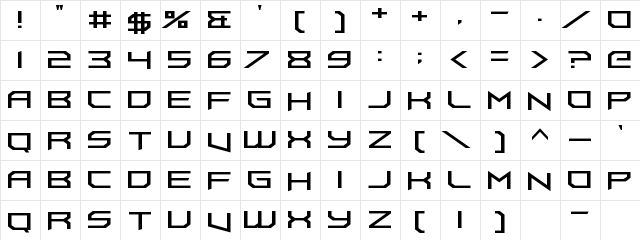
FoughtKnight UpperCut Regular
Design Context for FoughtKnight UpperCut Typeface
FoughtKnight UpperCut takes a measured approach to typography — its balanced proportions and neutral character make it a reliable workhorse for both digital and print work.